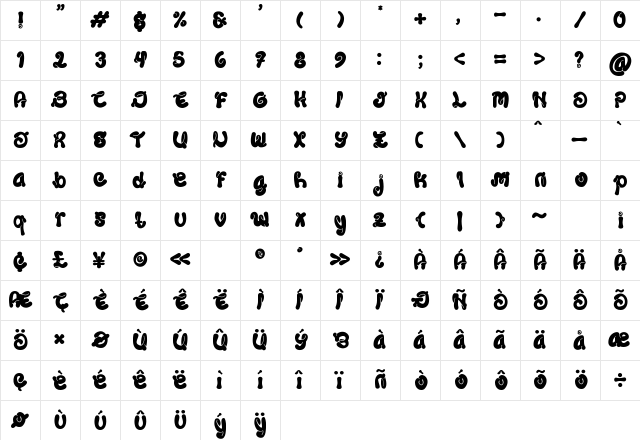
Kidsa Plays Regular Free Font
Kidsa Plays Regular
Foundry: Yumnacreative
Designer: Yumnacreative
Design Context for Kidsa Plays
Kidsa Plays has an approachable, lighthearted character - its loose, expressive forms are well-suited to children's content, casual branding, and fun-first design.
Font Pairing: Pairs well with a rounded or humanist sans for body copy, maintaining the friendly tone without relying on Kidsa Plays to carry extended reading.
Pro Tip: Use Kidsa Plays at larger display sizes where its expressive character can land. Pair with a clean, simple sans for body copy to maintain readability.